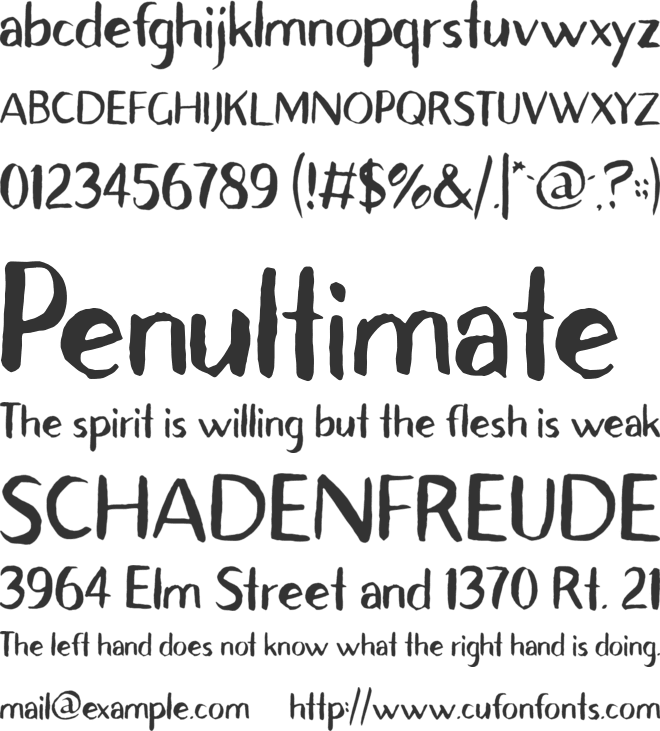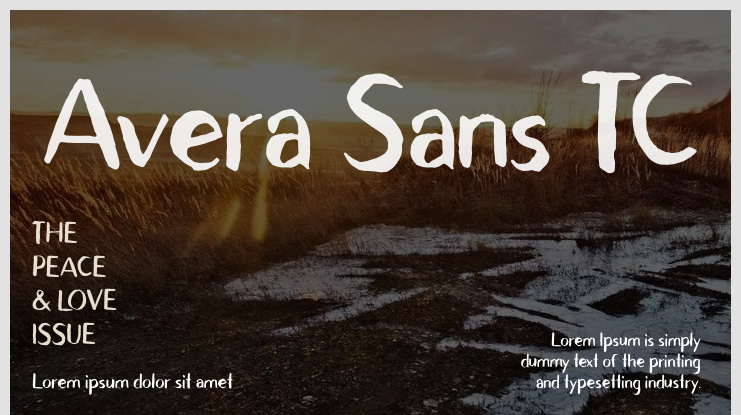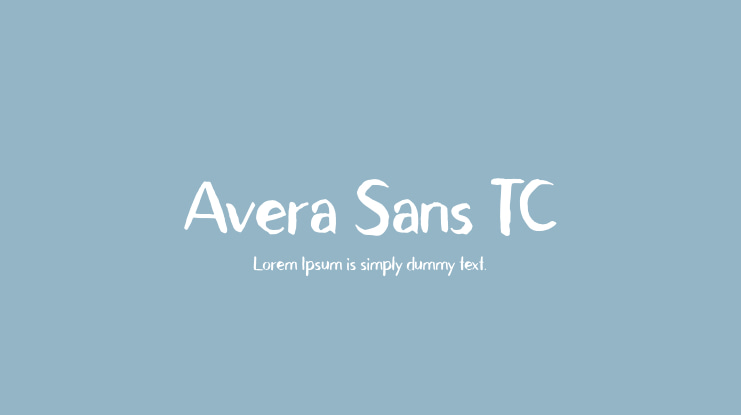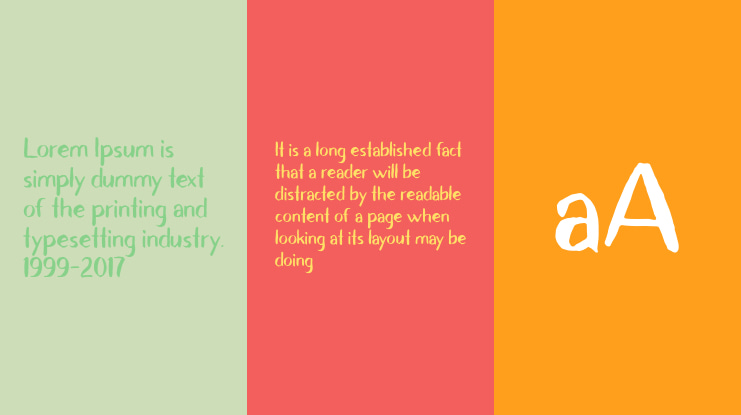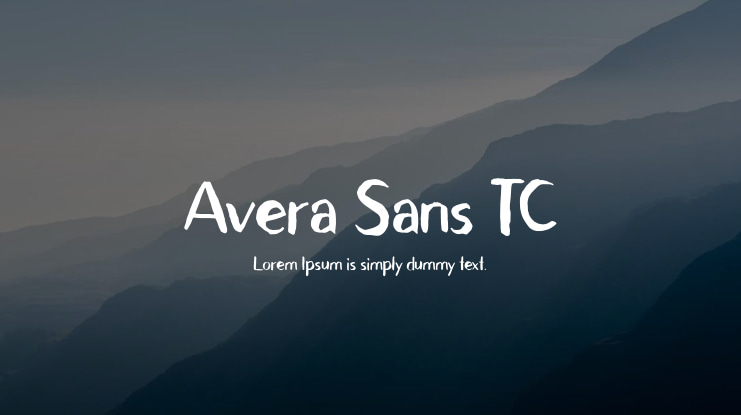
Avera Sans TC Font
Font Description:
Introducing TC Avera Sans Brush, a single-weight font that breathes life into every word with the energy and expressiveness of hand-painted strokes. This typeface maintains the clarity and simplicity of its precursor, Avera Sans, while adding the organic, tactile qualities of brushwork.
TC Avera Sans Brush is ideal for creating impactful visuals that command attention. Its dynamic forms convey a sense of authenticity, making it perfect for designs that seek to be both modern and personable.
Whether it's adorning a poster, the front of a t-shirt, or the branding of a product that emphasizes craftsmanship, our latest brush font might be just what you need. It fosters a connection, hinting at a backstory of artistry and human touch. An excellent choice for messages that resonate on a personal level.